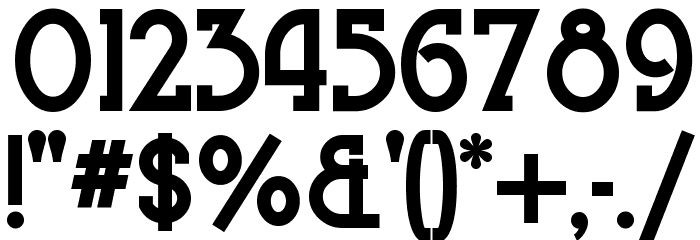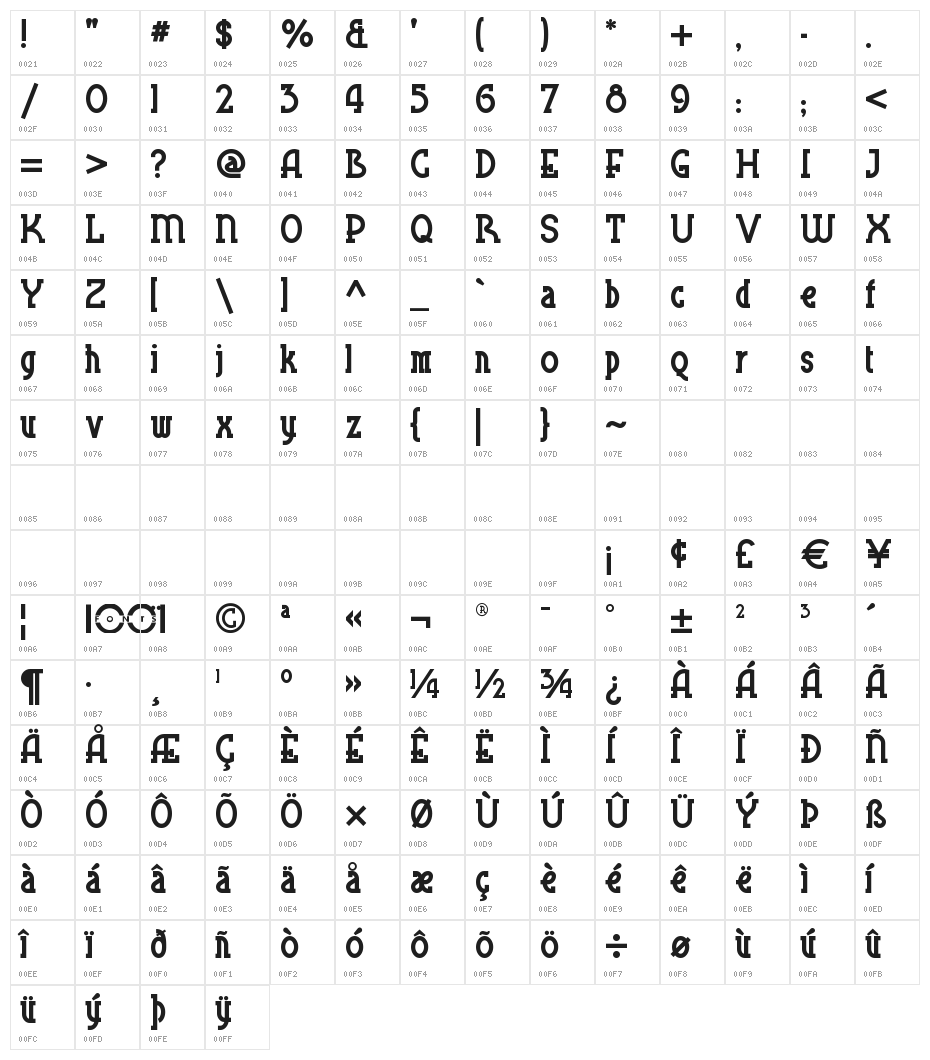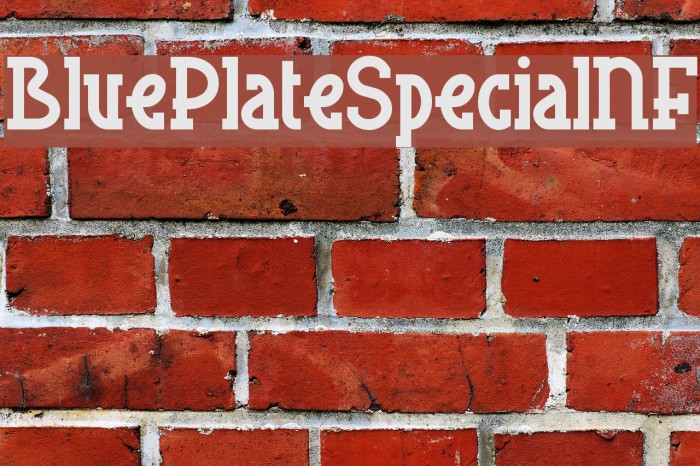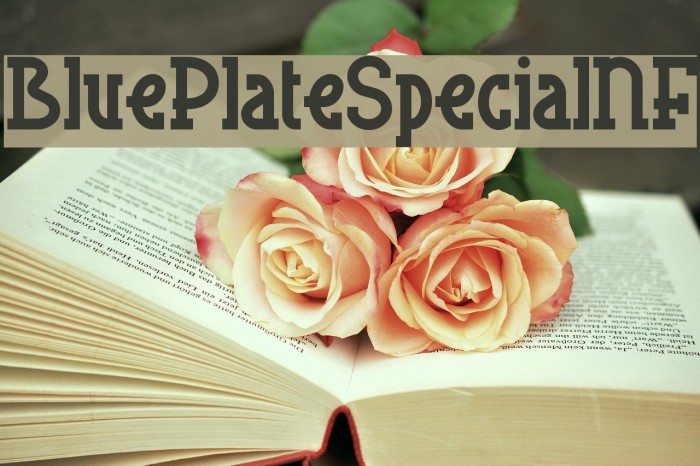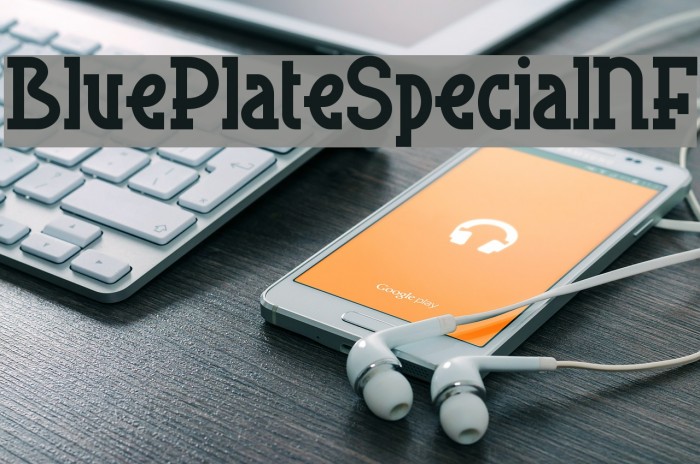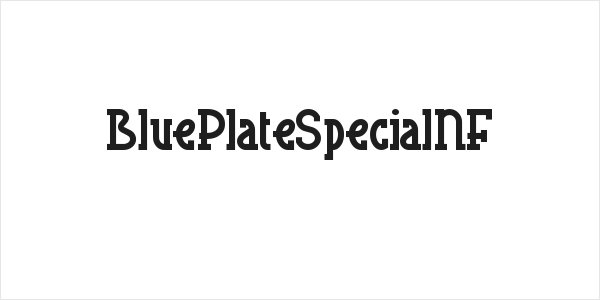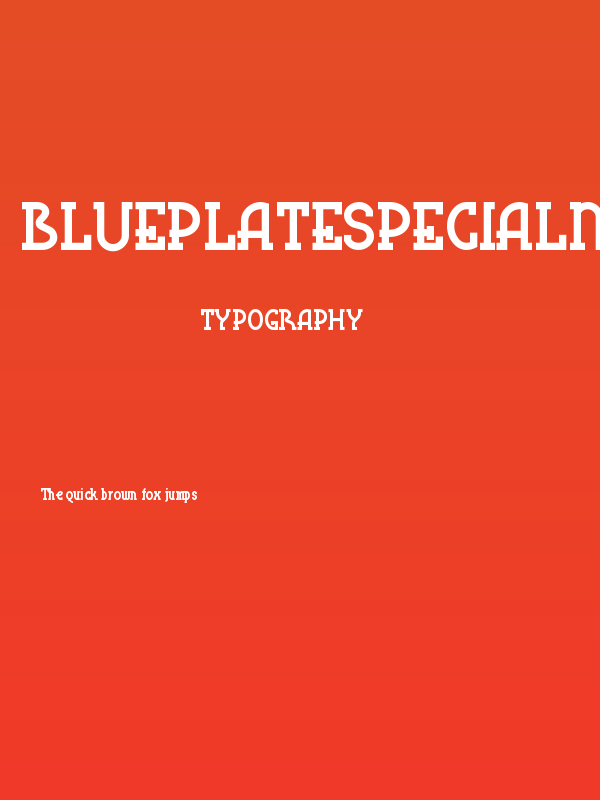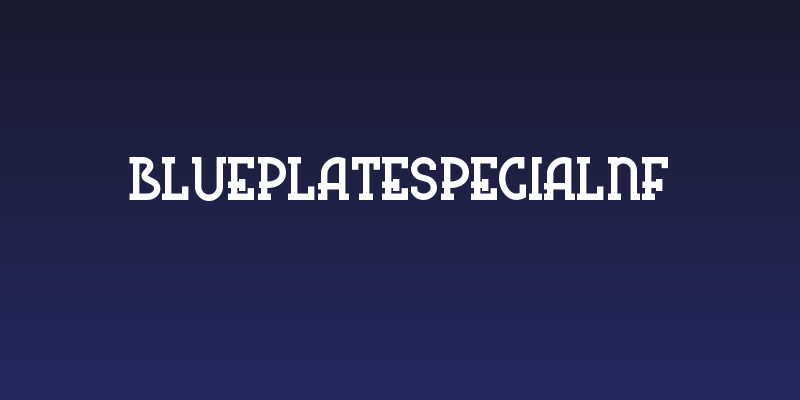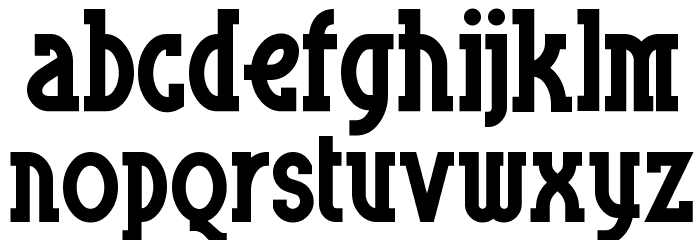
BluePlateSpecialNF Font
BluePlateSpecialNF Description
This font features a bold and distinctive style with strong geometric shapes and a playful, retro vibe. The uppercase letters are characterized by their blocky, angular forms, while the lowercase letters maintain a consistent weight and structure, offering a cohesive look. The numerals are equally bold, ensuring visibility and impact. Special characters are designed with the same attention to detail, providing a complete and versatile typeface. The font's unique aesthetic makes it suitable for projects that require a touch of nostalgia or a bold statement.
Overall StyleRetro, Decorative
Proposed ProjectsIdeal for vintage-themed posters, retro branding, eye-catching headlines, and playful graphic designs.